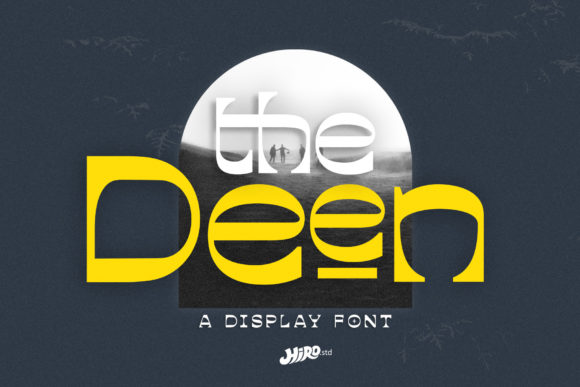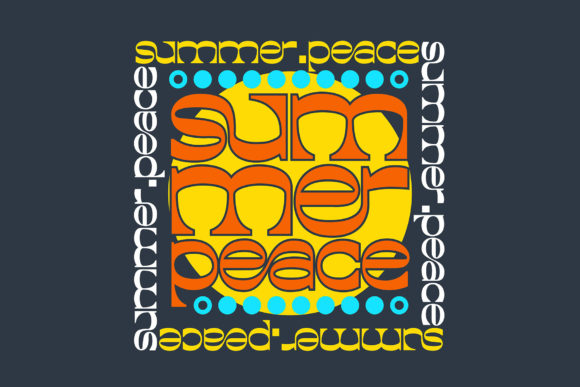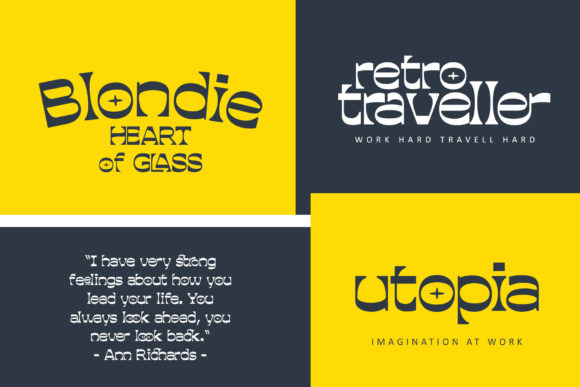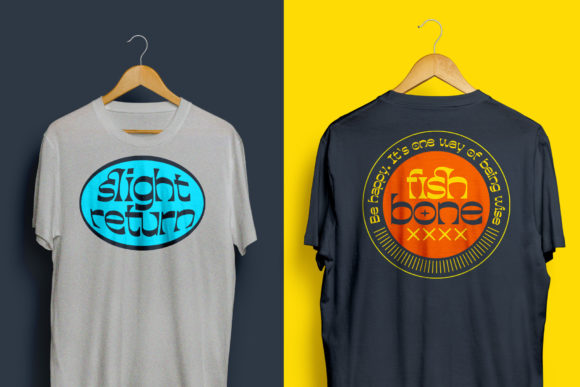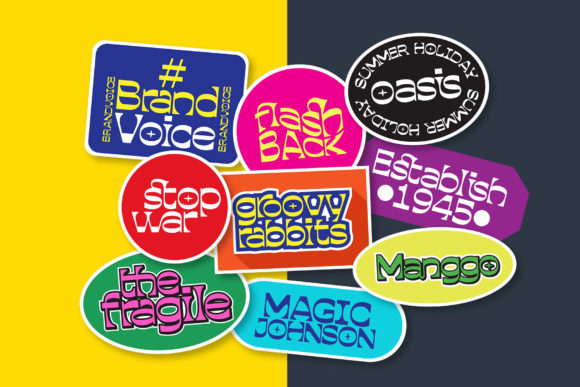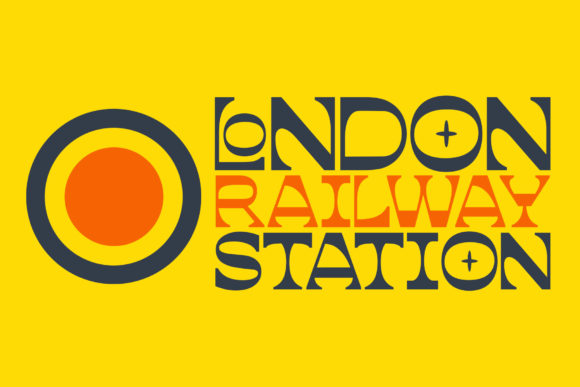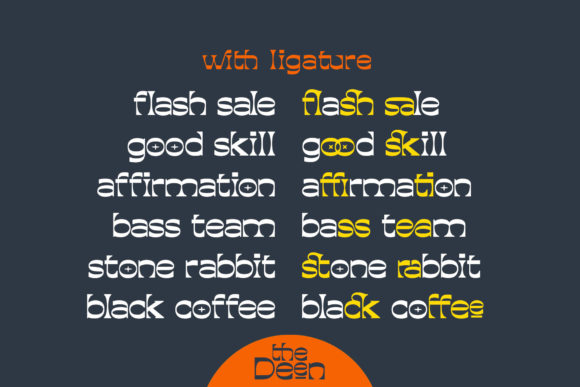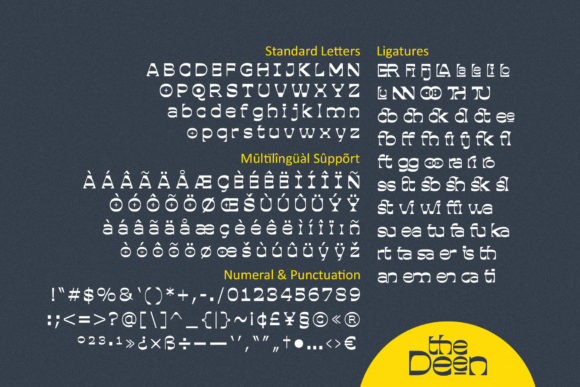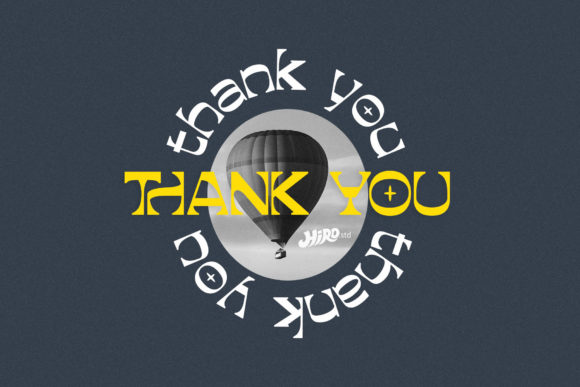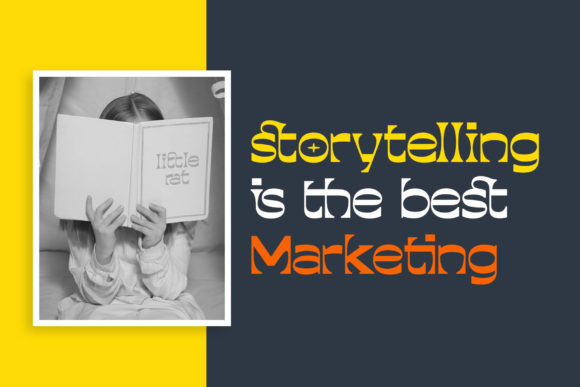
The Deen
The Deen: A Stylish and Modern Slab Serif Font
The Deen is a distinctive slab serif font that combines stylishness with a modern aesthetic. This versatile typeface beautifully blends urban and retro-vintage elements to create spectacular typography that can elevate any design project.
Key Features of The Deen
• Stylish Design: Features elegant letterforms that add sophistication to designs.
• Modern Aesthetic: Offers a contemporary look suitable for current design trends.
• Urban-Retro Blend: Combines urban elements with a retro-vintage feel for a unique style.
• Slab Serif Structure: Incorporates the characteristic thick, rectangular serifs typical of slab serif fonts.
• Versatile Application: Suitable for a wide range of projects, from branding to editorial designs.
Ideal Uses for The Deen
The Deen’s unique characteristics make it particularly well-suited for:
• Modern branding and logo design
• Magazine and editorial layouts
• Poster and advertisement designs
• Website headers and digital content
• Product packaging with a stylish twist
• Social media graphics and content
When incorporating The Deen into your designs, consider these tips:
• Use for headlines or short blocks of text to showcase its stylish and modern look
• Experiment with different sizes to highlight the font’s unique urban-retro details
• Take advantage of its versatility to create designs that stand out
The Deen is an excellent choice for designers looking to add a stylish and modern slab serif font to their typographic toolkit. Its ability to blend urban and retro-vintage elements makes it stand out in the world of typography. Whether you’re working on logo designs for contemporary brands, creating layouts for magazines, or developing content that requires a touch of sophisticated modernity, The Deen offers the perfect blend of style and versatility.
Furthermore, The Deen’s unique aesthetic allows it to shine in various contexts. From vintage-inspired designs with a modern twist to more playful layouts that need a touch of urban sophistication, this font adapts beautifully. Its ability to create spectacular typography can make any design seem extraordinary.
In conclusion, The Deen is a font that lives up to its name, adding a stylish and modern flair to your designs. Its versatility allows it to work well in both contemporary, urban projects and retro-inspired layouts. For those looking to add a touch of sophisticated modernity to their work, The Deen can even enhance traditional designs with its unique blend of urban and vintage elements, creating typography that truly stands out in any context.